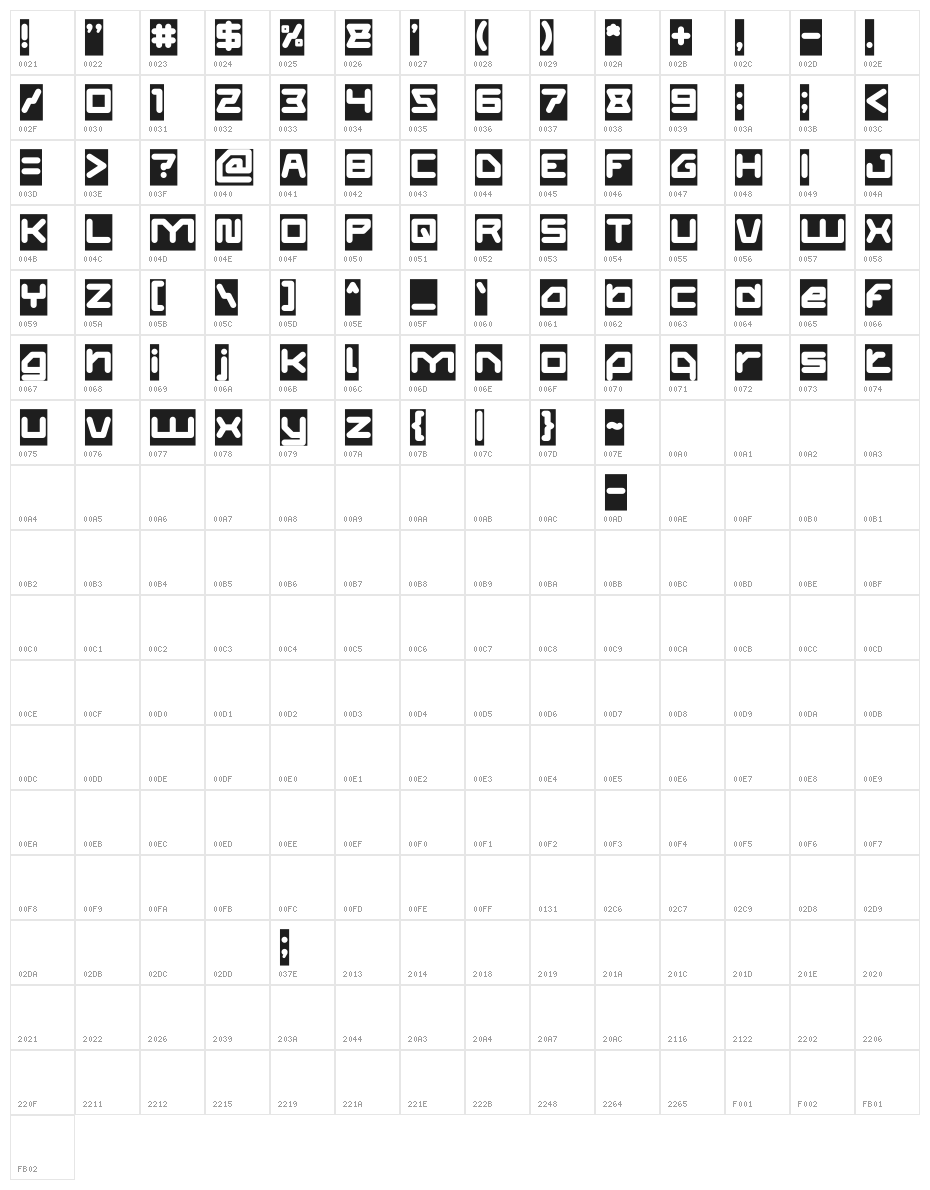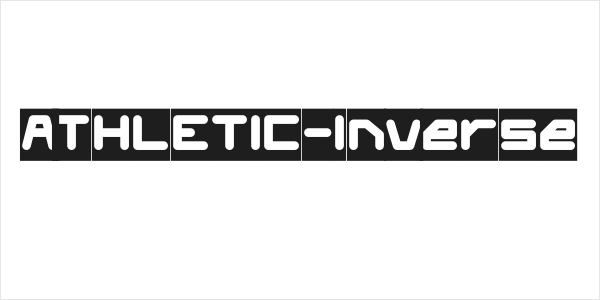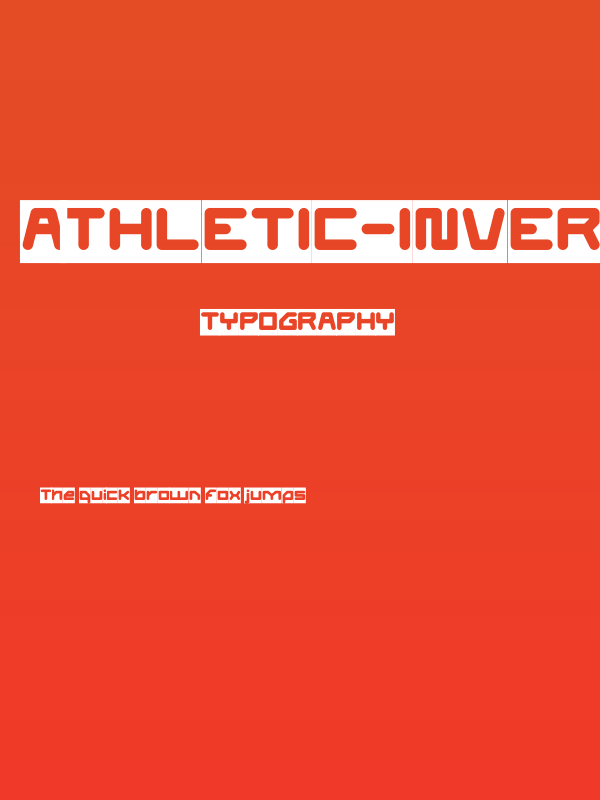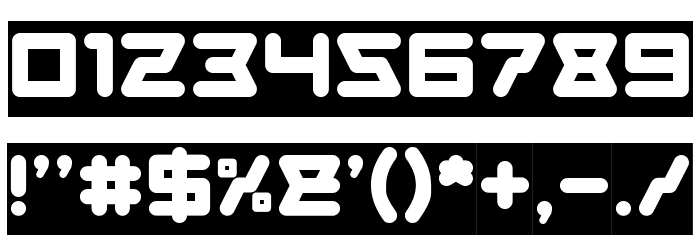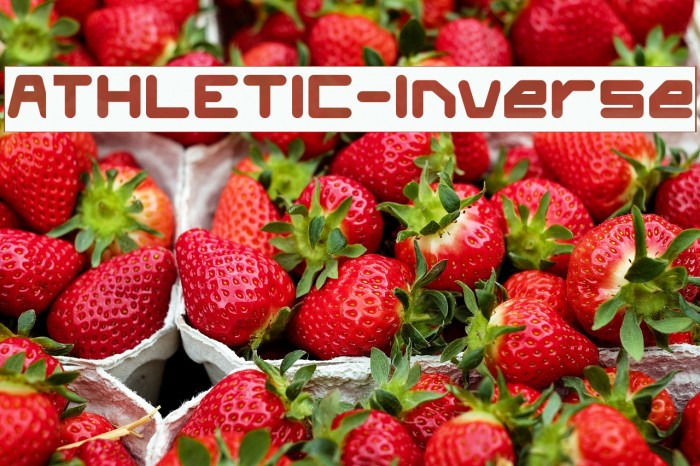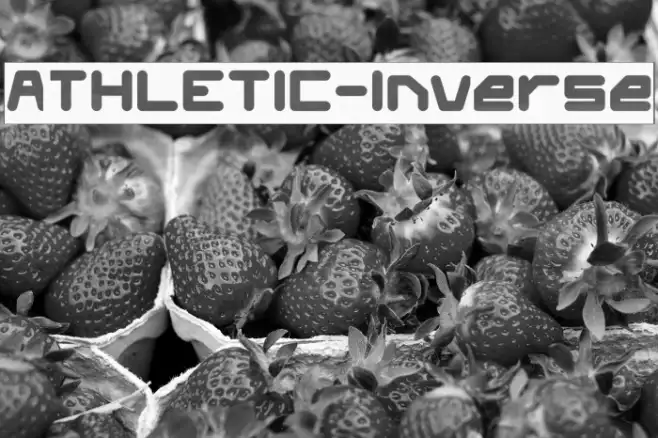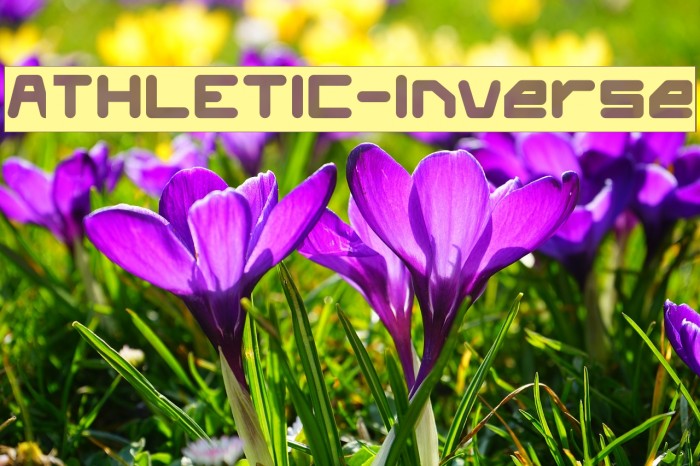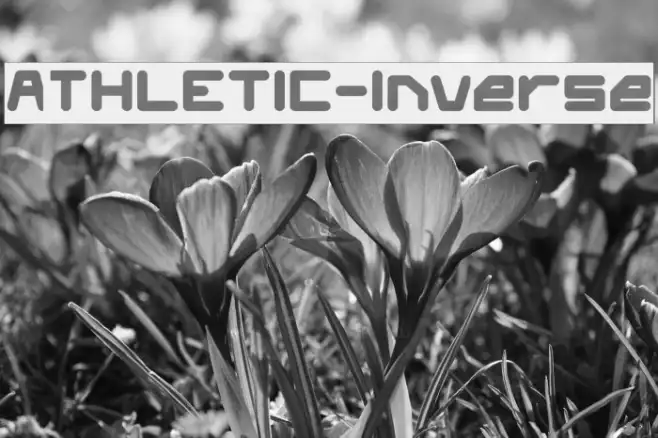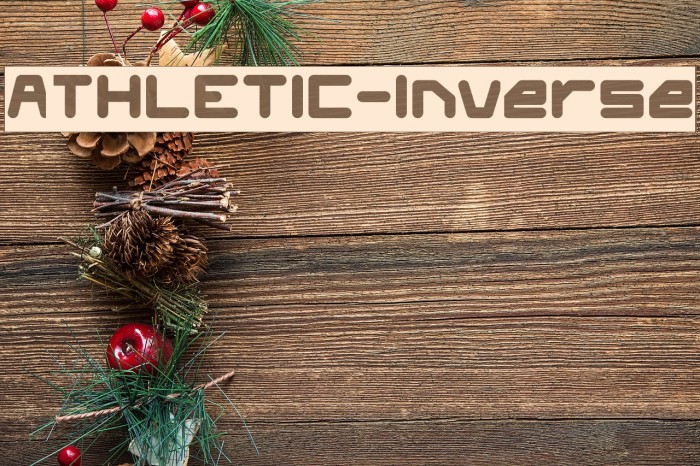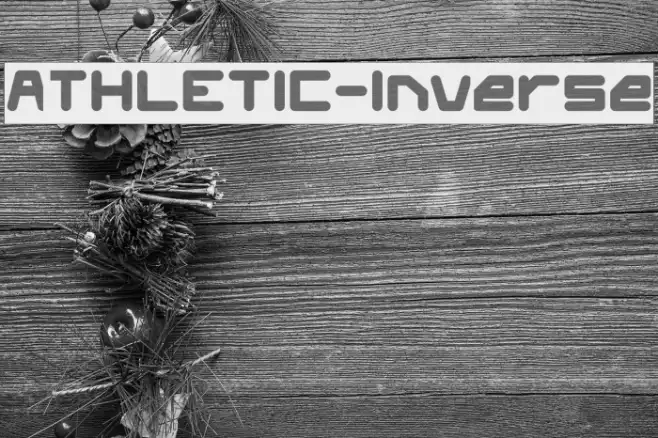
ATHLETIC-Inverse Font
ATHLETIC-Inverse Description
This font features a bold, geometric design with a modern and sporty aesthetic. The characters are constructed with thick, uniform strokes and rounded edges, giving them a futuristic and dynamic appearance. The uppercase and lowercase letters maintain a consistent style, with a slight variation in size and shape to distinguish them. The numbers and special characters are designed to match the overall theme, ensuring a cohesive look across all elements. The font's strong presence makes it ideal for attention-grabbing applications.